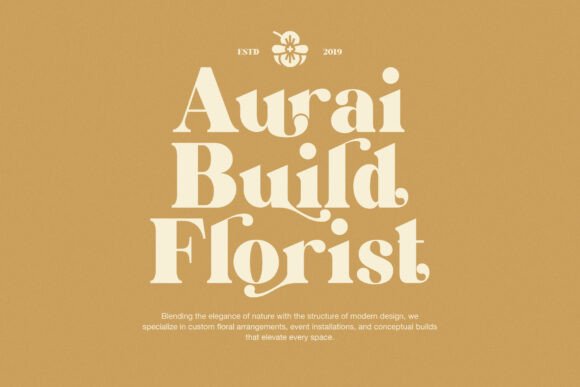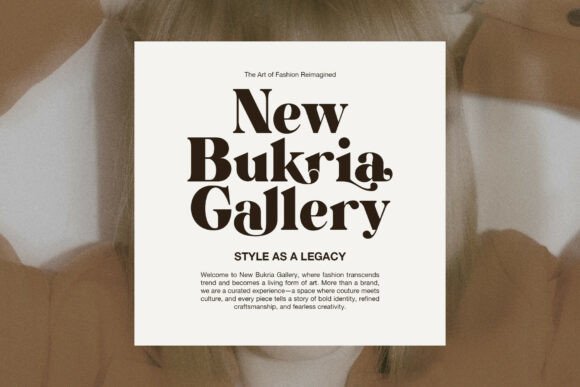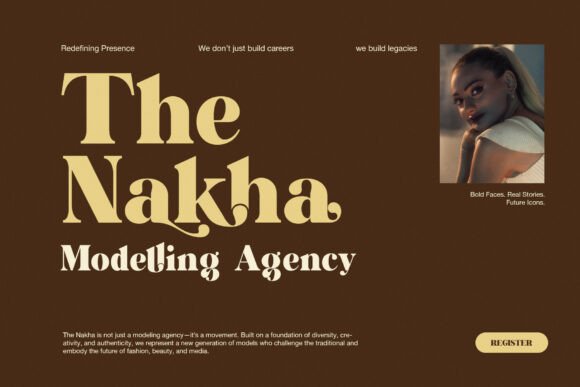
Introduction to Mahis Font
Have you ever been browsing through a beautifully designed magazine, and a single font catches your eye? The way the letters flow, the balance of curves and lines, and the overall feel of the text transport you to a world of elegance and sophistication. For designers, finding that perfect font can be a game-changer. It’s what elevates a project from good to great, and that’s exactly what the Mahis Font does.
As a valuable design resource, Mahis Font offers a unique combination of classic charm and modern style. Its soft curves and sharp details create a timeless touch that adds beauty and clarity to any creative project. Whether you’re working on branding, fashion, editorial design, packaging, or invitations, Mahis Font is an excellent choice.
With its clean and balanced lines, Mahis Font is perfect for both print and digital projects. It’s a high-quality font that offers a smooth reading experience, making it ideal for large titles and smaller text alike. And the best part? It’s available for free download, making it an accessible design resource for designers of all levels.
Key Features of Mahis Font
• High-quality, elegant design suitable for creative projects, making it a valuable design resource.
• Comes with a transparent background, allowing for seamless integration into various design compositions.
• Features a clean, modern aesthetic with precise lines and subtle nuances, ideal for use in logos, branding, and typography-based designs.
• Designed to be highly scalable, maintaining its crispness and clarity at resolutions up to 300 DPI.
• Perfect for use in digital and print-based creative projects, including business cards, brochures, and website headers.
Honest Review: Mahis Font
I recently stumbled upon the Mahis Font, and I’m excited to share my thoughts on this design resource. The first thing that caught my attention was the high quality of the font itself. It’s sleek, modern, and perfect for any creative project.
One of the standout features of the Mahis Font is its transparent background. This makes it incredibly versatile and easy to work with, allowing you to place it on any background without worrying about distracting outlines.
• High-quality design with a modern aesthetic
• Transparent background for easy use
• Perfect for a wide range of creative projects
• May not be suitable for very small text sizes due to its modern design
• Some users may find the font too minimalist
Overall, I’m impressed with the Mahis Font. It’s a great addition to any design resource library, and I’d highly recommend it for any creative project that requires a high-quality, modern font. And the best part? It’s available for free download!
Tips for Getting the Most Out of Mahis Font
Use Mahis Font on a transparent background to create a high-quality design that pops. Experiment with different font sizes and colors to add depth and visual interest to your creative project. With its unique design, Mahis Font is a great resource for designers looking for a free download.
Mahis Font is perfect for designing logos, branding materials, and marketing collateral. Its high-quality design makes it a great choice for creative projects that require a professional touch. Whether you’re working on a logo design or a marketing campaign, Mahis Font is a versatile design resource that can help you achieve your goals.